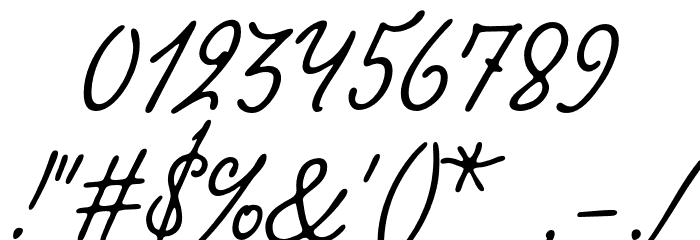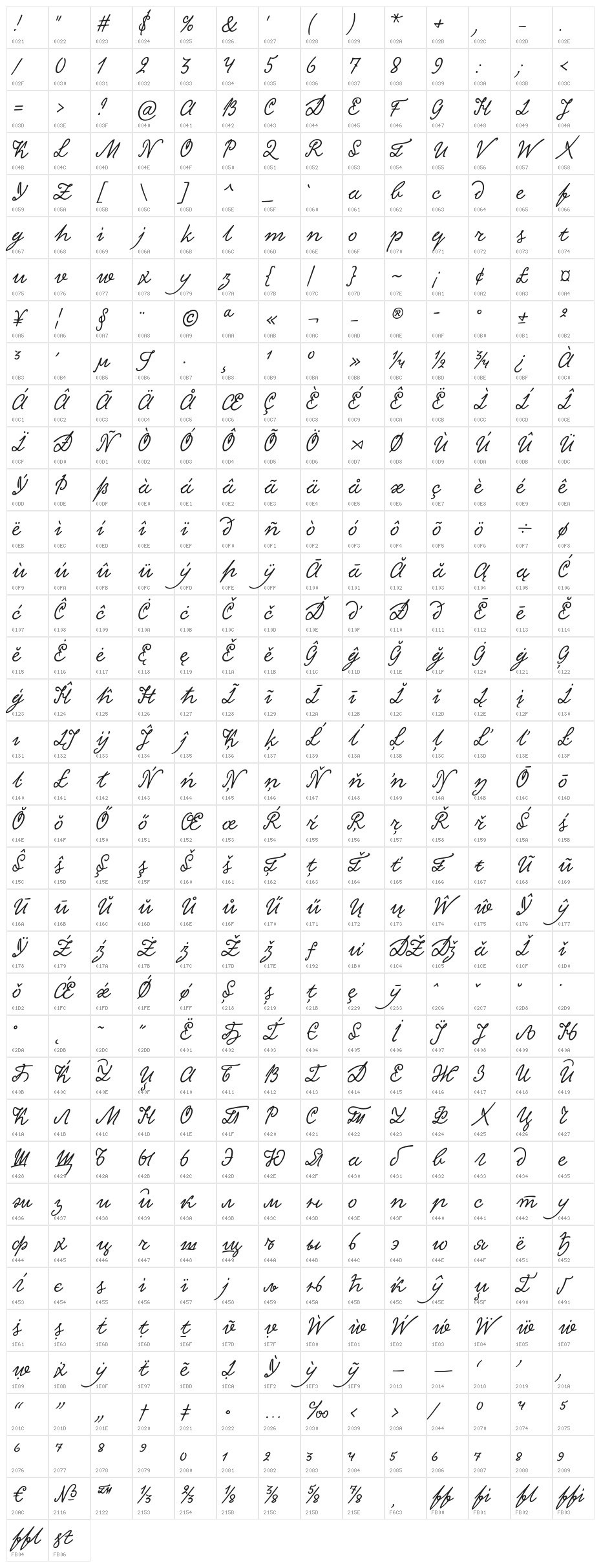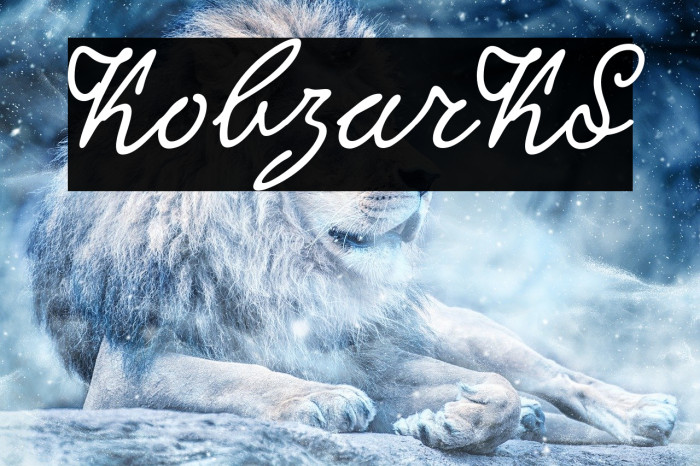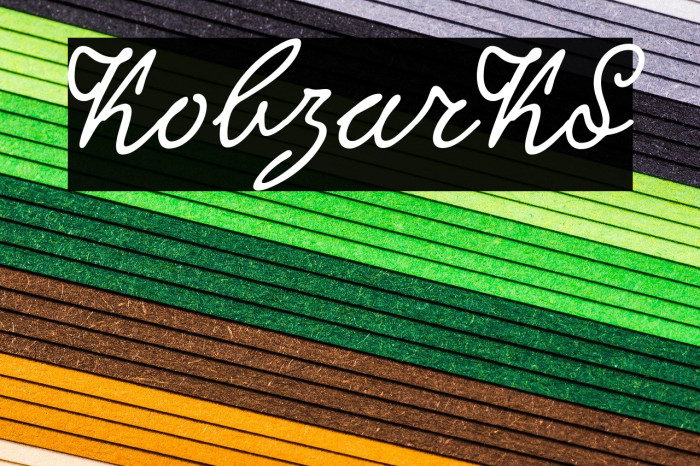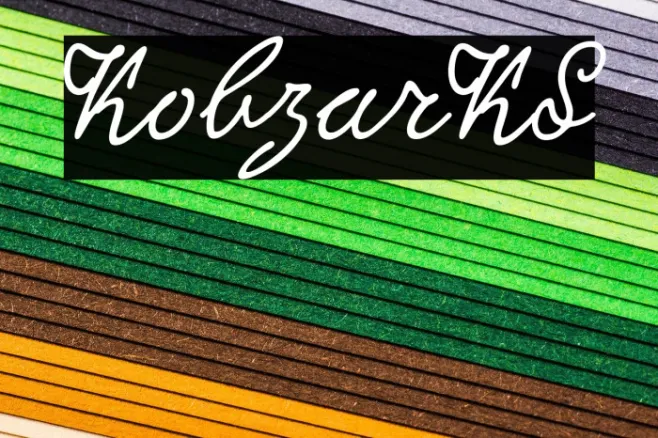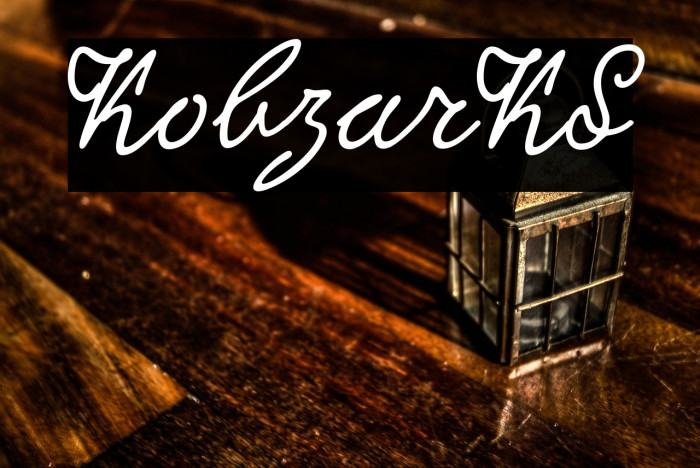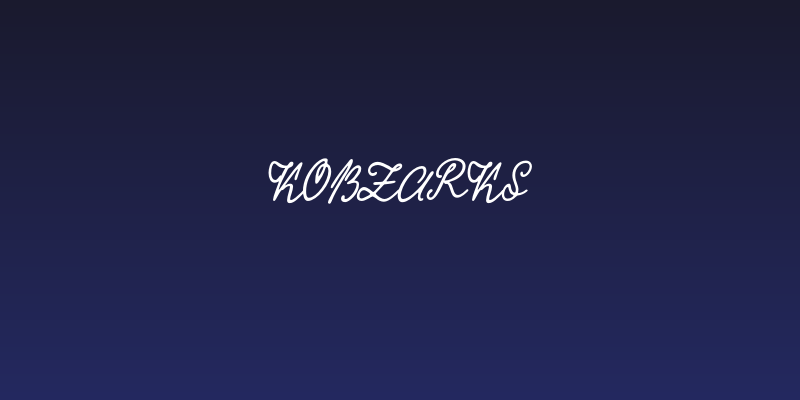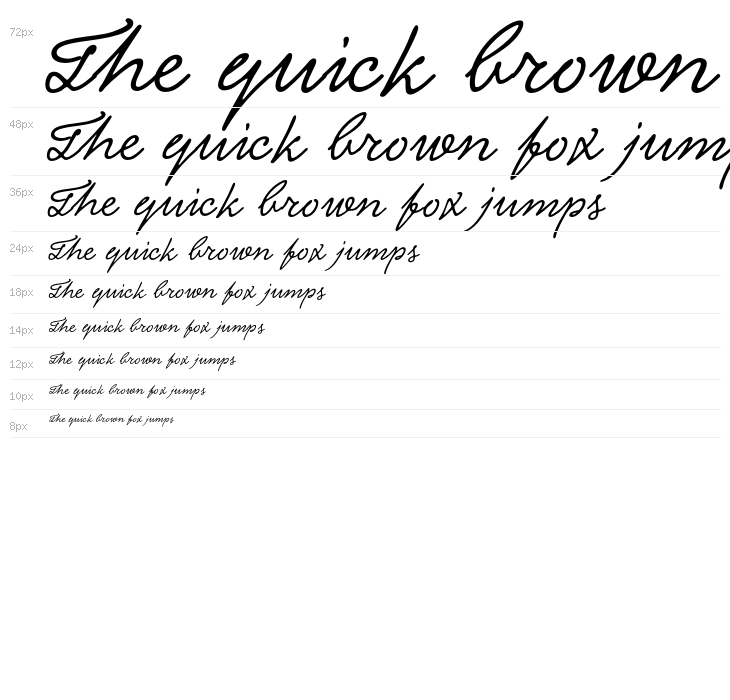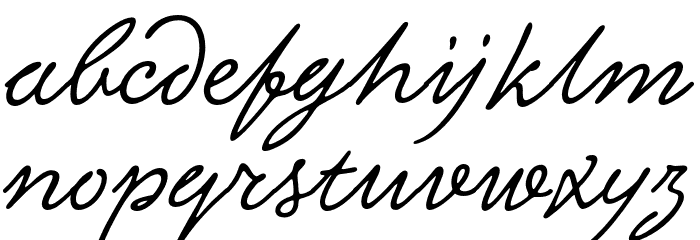
KobzarKS Font
KobzarKS Description
This font features a flowing, cursive style that mimics elegant handwriting. The characters are connected, with smooth transitions between letters, giving it a natural and fluid appearance. The uppercase letters are slightly more ornate, with some characters featuring loops and flourishes that add a touch of sophistication. The lowercase letters maintain a consistent slant, enhancing the script-like quality. Numbers and special characters are designed to match the overall aesthetic, ensuring uniformity across all elements. The font's design is both classic and versatile, making it suitable for a variety of applications.